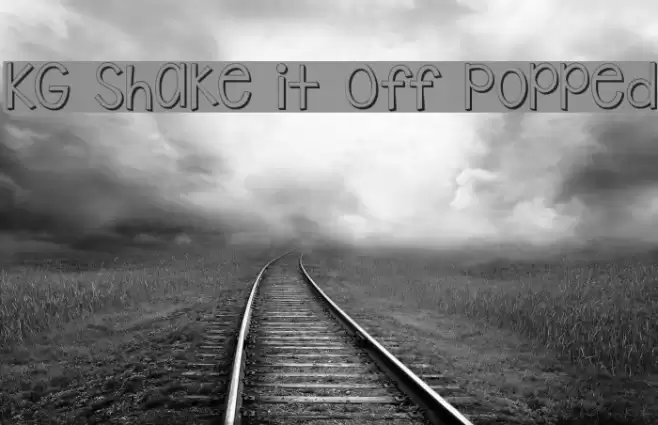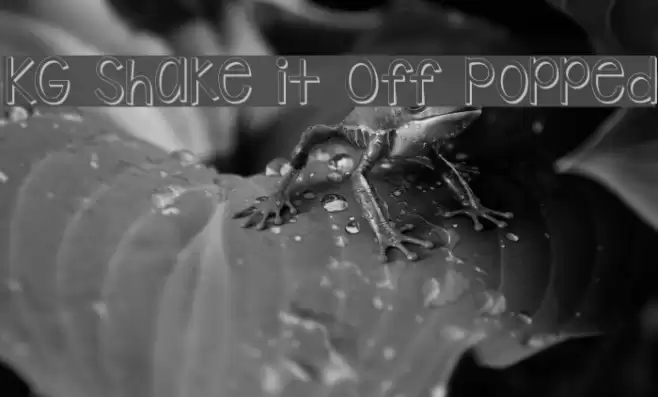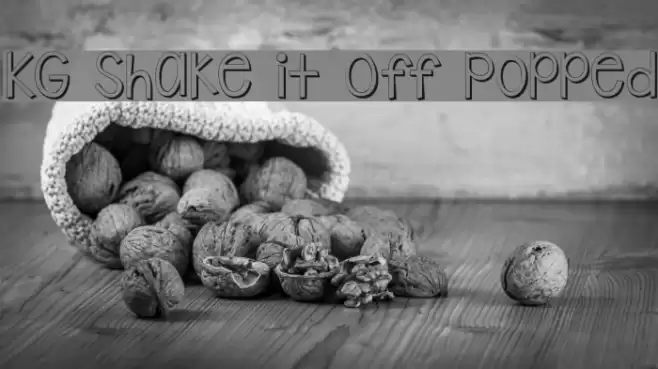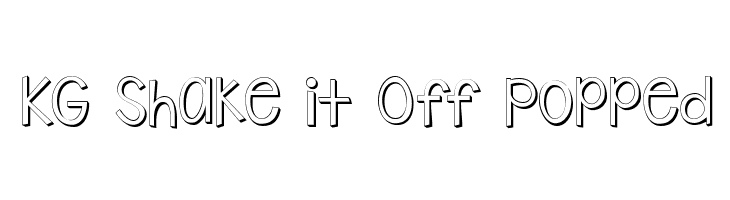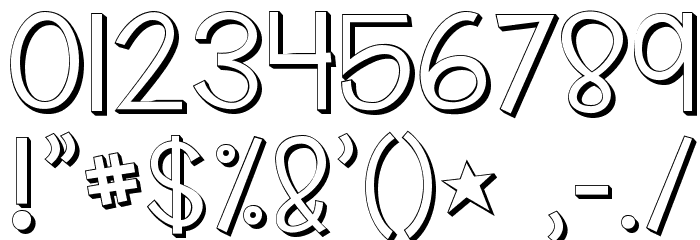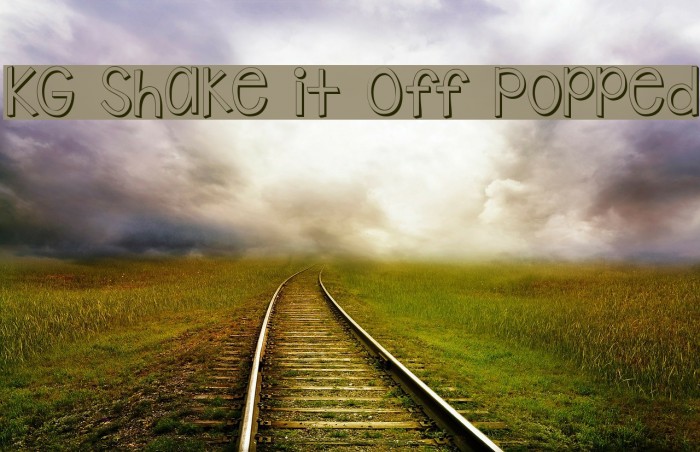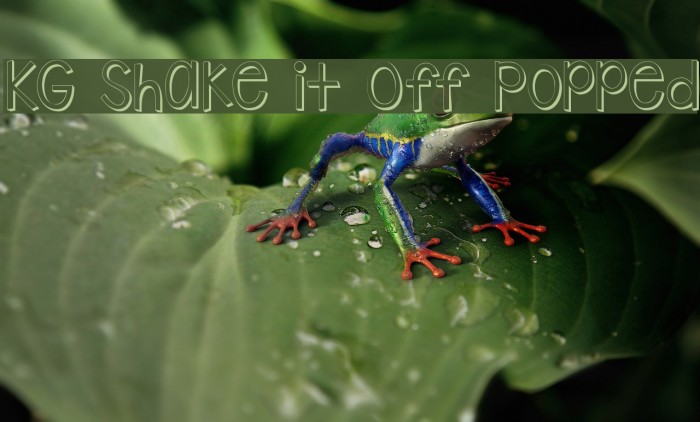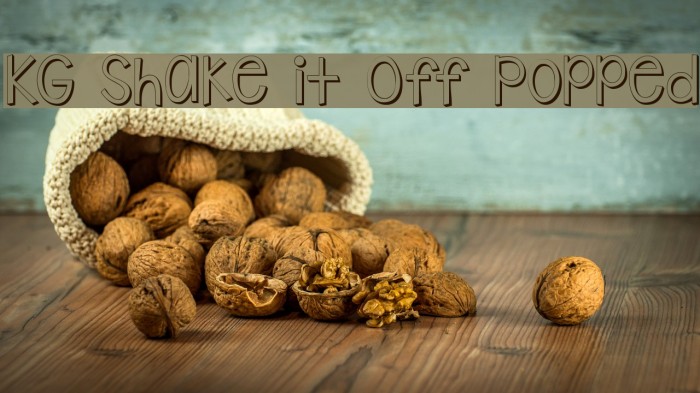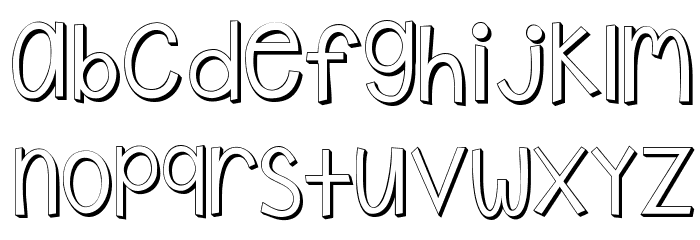
KG Shake it Off Popped Font
KG Shake it Off Popped Description
This playful and whimsical font features a bold, outlined style with a hand-drawn appearance. The characters are slightly irregular, adding a sense of fun and creativity. The uppercase and lowercase letters maintain a consistent height, while the numbers and special characters complement the overall design. The font's unique style makes it stand out, with a cartoonish and informal vibe that is perfect for projects requiring a touch of personality and flair.
A playful, outlined font with a hand-drawn, whimsical style from Cartoon fonts.
- Proposed Projects: Ideal for children's books, playful branding, party invitations, and creative posters.
- Overall Style: Playful, Whimsical, Hand-drawn